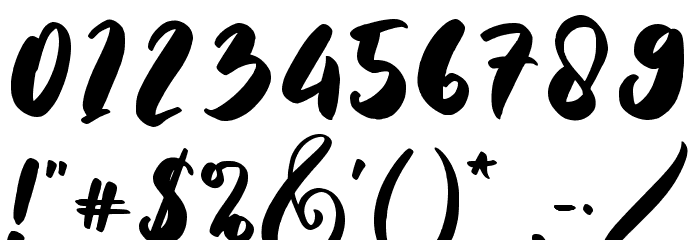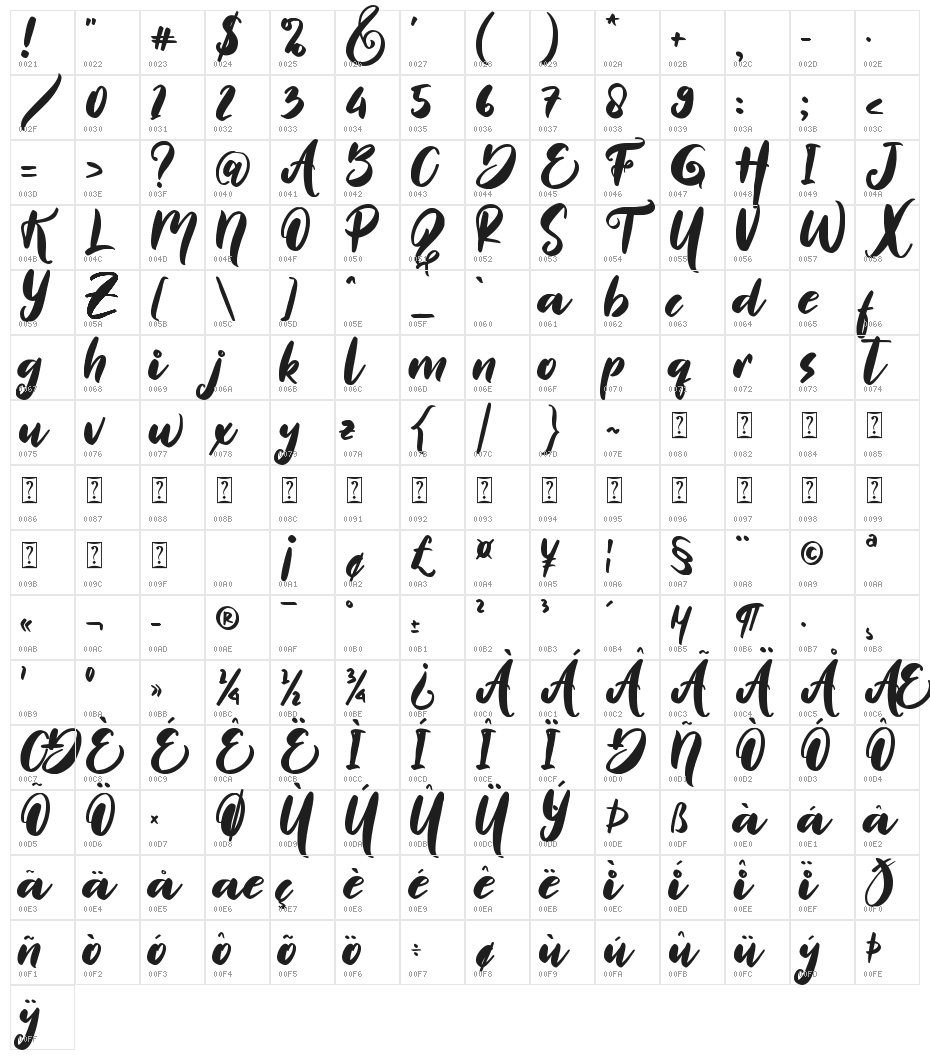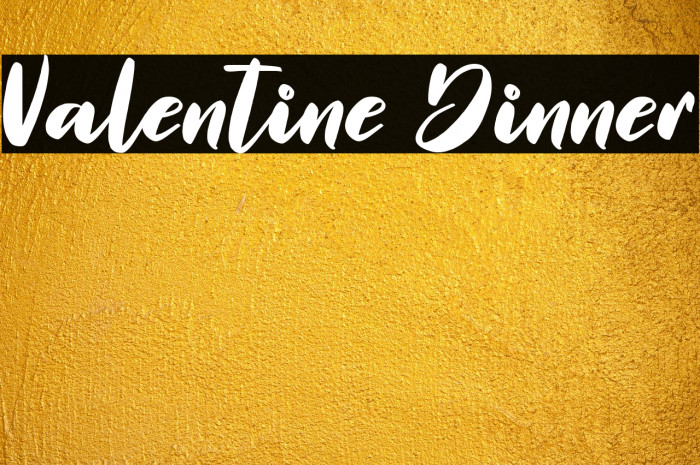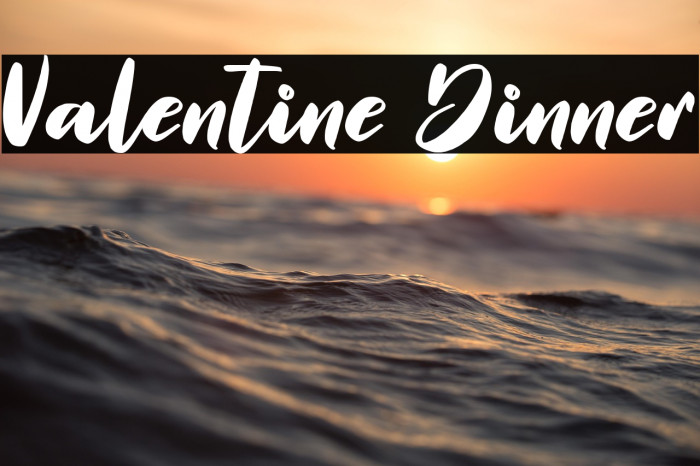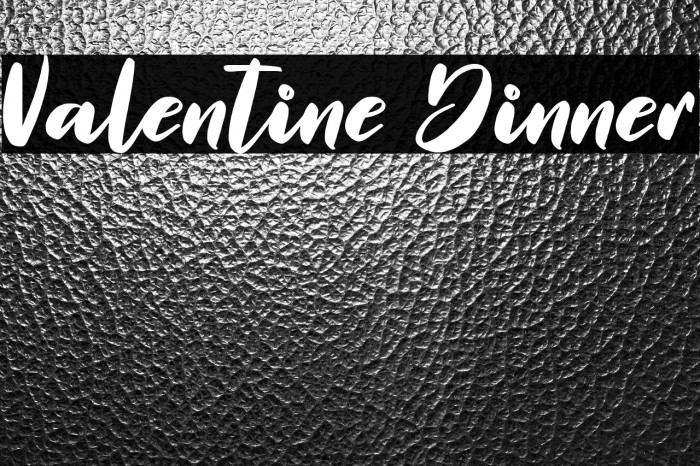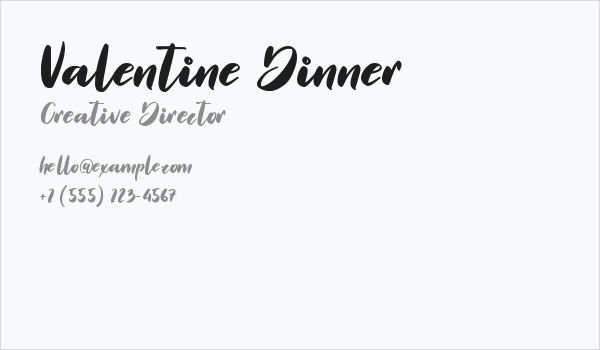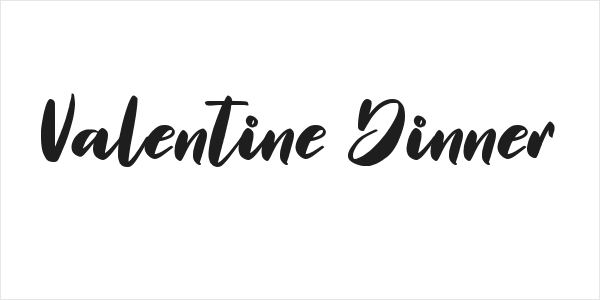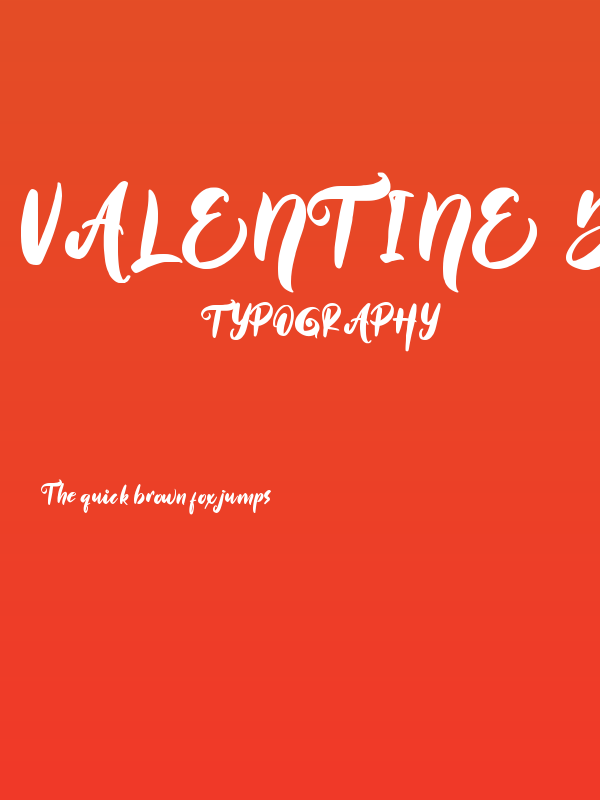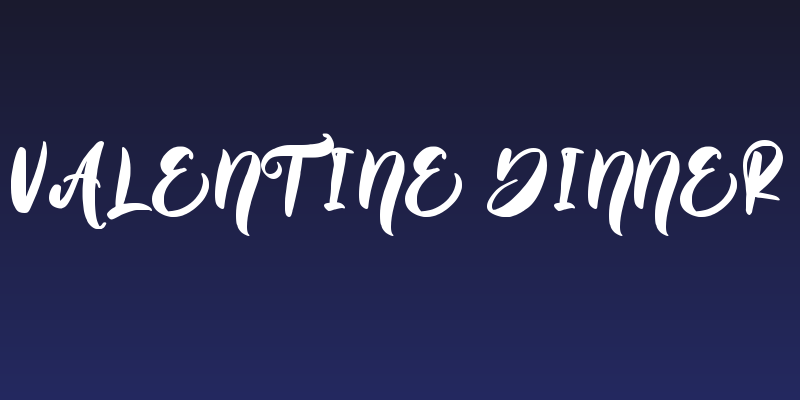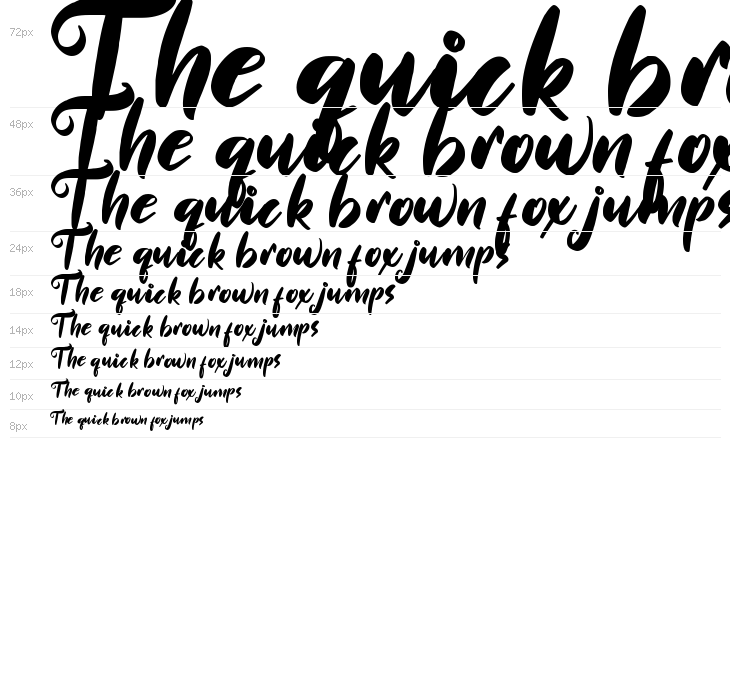
Valentine Dinner Font
Valentine Dinner Description
This font features a bold, expressive script style with a handwritten appearance. The letters are fluid and dynamic, with a playful yet elegant flair. The strokes are thick and consistent, providing a strong visual impact. The uppercase letters are slightly more structured, while the lowercase letters exhibit a more casual, flowing style. The numbers and special characters maintain the same boldness and fluidity, ensuring a cohesive look across all characters. This font is perfect for adding a personal touch to any design, combining both modern and classic elements.